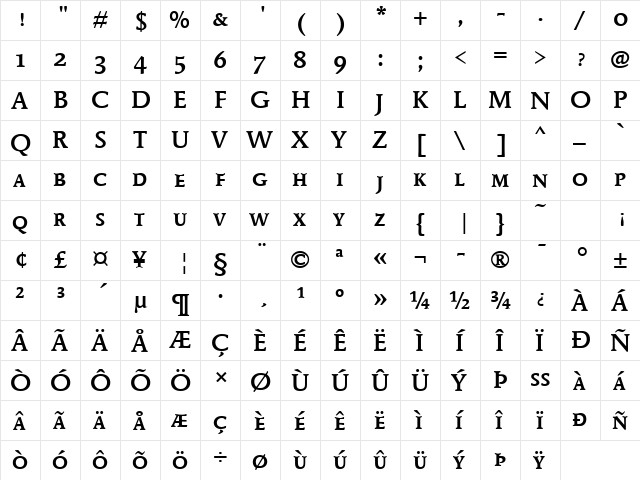
Mendoza Roman Md SC ITC TT Med
Design Context for Mendoza Roman Md SC ITC TT Typeface
Mendoza Roman Md SC ITC TT offers clean, dependable letterforms without strong stylistic allegiance, making it a practical choice for designers who need flexibility.
Pro Tip: Use Mendoza Roman Md SC ITC TT in both headline and body roles to test its range before committing to a single application.